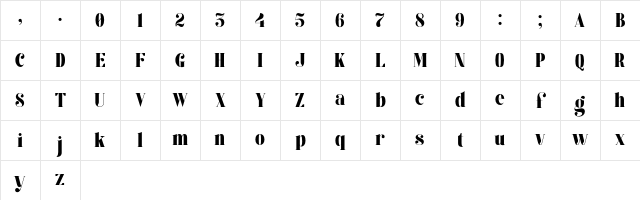
KAGE-Freebies Black
Foundry: Balibilly Design
Designer: Balibilly Design
Design Context for KAGE-Freebies
KAGE-Freebies is a composed and adaptable typeface that performs quietly and consistently across a wide range of design contexts.
Pro Tip: Use KAGE-Freebies in both headline and body roles to test its range before committing to a single application.